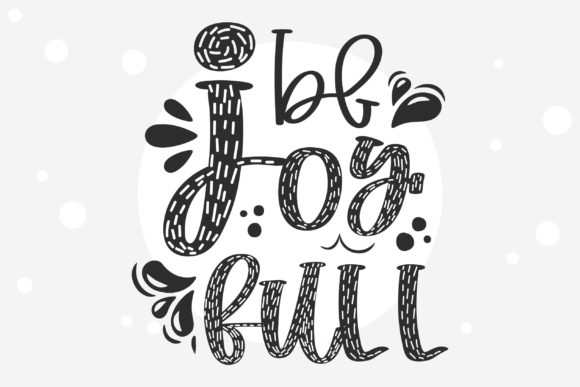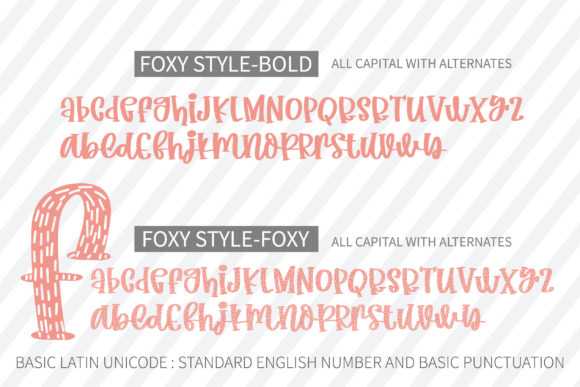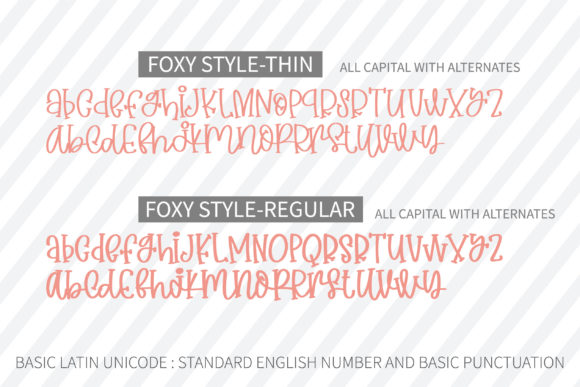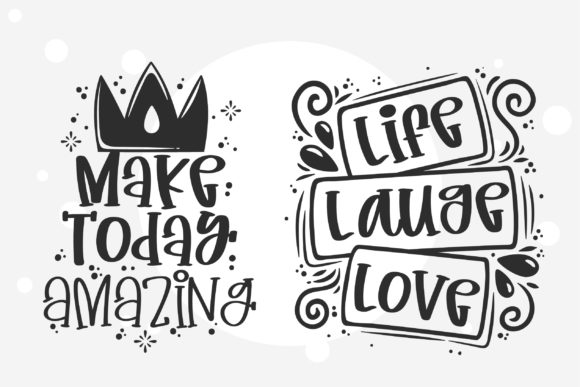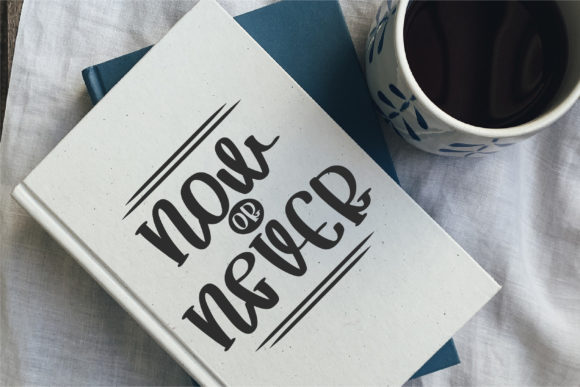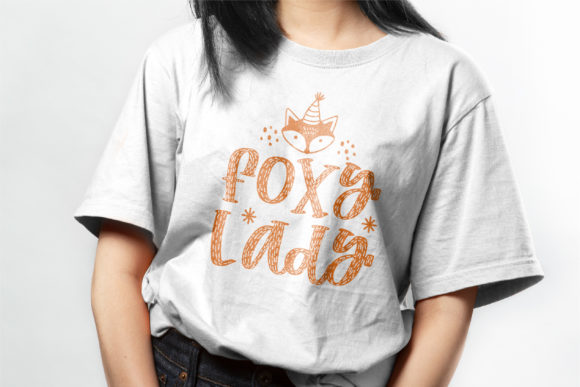
Introduction to Foxy Style Font Font
Fonts play a crucial role in design, and the Foxy Style Font font is a typeface that brings both character and versatility to any project. Whether you’re working on a branding project, a website, or a print design, the Foxy Style Font font offers a unique style that can elevate your work.
Foxy Style is an all capital handwritten font.
Its natural and unique style makes it incredibly fitting for a Valentineβs card or craft Add it to your most creative ideas, and notice how it makes them come alive.
Key Features of Foxy Style Font Font
Why Choose Foxy Style Font Font?
The Foxy Style Font font is more than just a typeface β it’s a design tool that helps you communicate your message with style and clarity. Its unique character set and versatile design make it suitable for a wide range of applications, from elegant invitations to bold headlines.
With its carefully crafted letterforms and balanced proportions, the Foxy Style Font font ensures readability and visual appeal across all mediums.
What makes Foxy Style Font font special?
The Foxy Style Font font stands out with its unique design, exceptional readability, and versatility across various design applications.